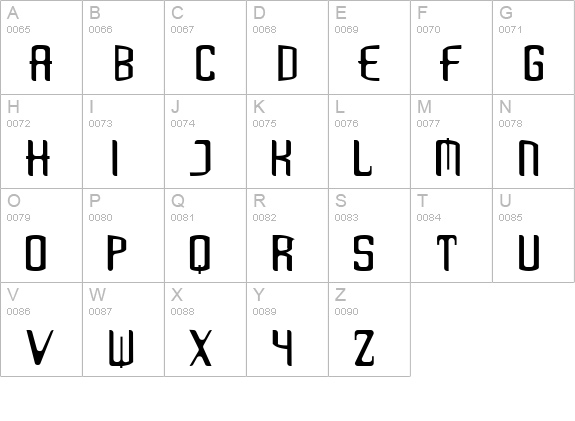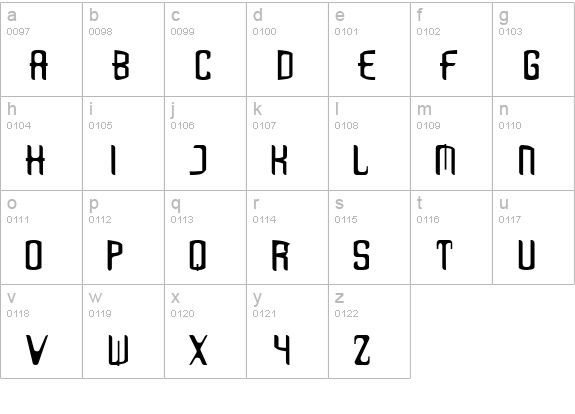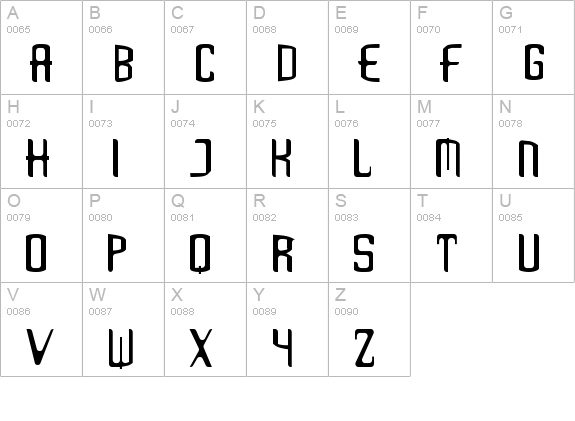
Love Bytes Font Details
Love Bytes font is a whimsical and charming typeface that captures the essence of love and romance in every letter. With its playful curves and smooth lines, this font is perfect for adding a touch of sweetness to your projects. Whether you're designing a wedding invitation, a Valentine's Day card, or simply want to spread some love in your designs, Love Bytes font is the ideal choice. Best of all, Love Bytes font is available for free download at FontsMarket.com. This means you can easily add this delightful font to your collection without breaking the bank. So why wait? Spread the love with Love Bytes font today!